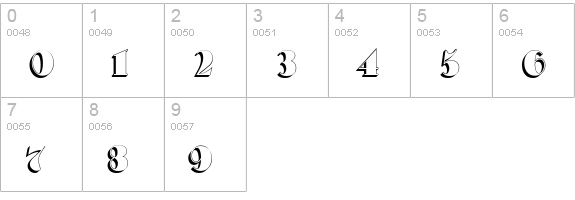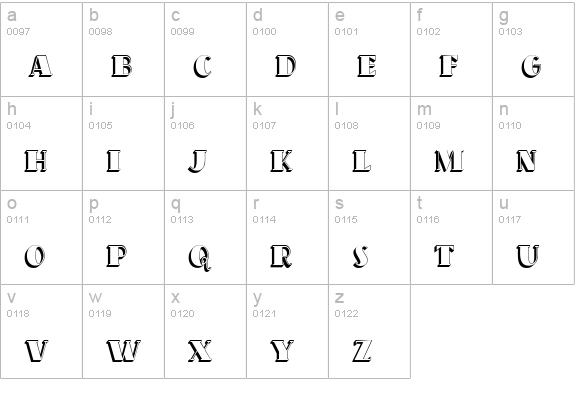
OakParkExtruded Font Details
OakParkExtruded font is a modern and stylish typeface that combines sleek lines with a hint of artistic flair. Its unique design features sharp edges and intricate details that are sure to make any project stand out. With a bold and impactful presence, this font is perfect for headlines, logos, and branding materials. The best part? OakParkExtruded font is completely free to download at FontsMarket.com, making it easily accessible for designers and creatives looking to add a touch of sophistication to their work. Whether you're working on a website, poster, or social media graphics, this versatile font is a must-have addition to your collection. Don't miss out on the opportunity to enhance your designs with OakParkExtruded font's modern and eye-catching aesthetic. Download it for free today and elevate your projects to the next level!